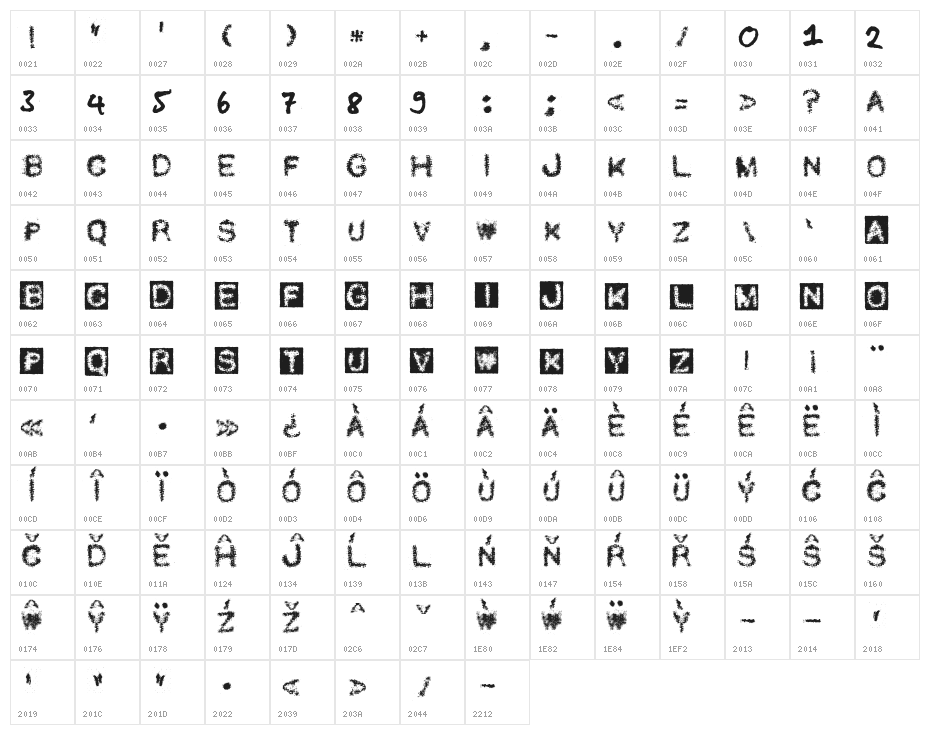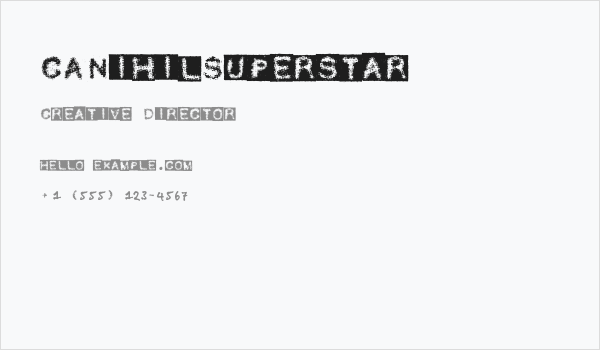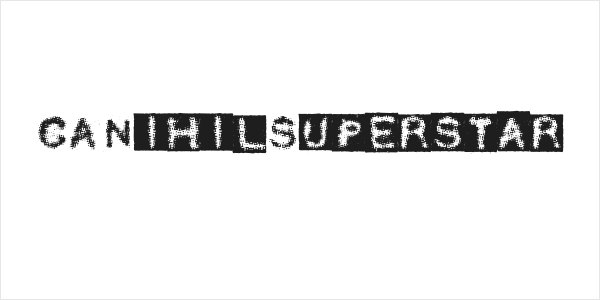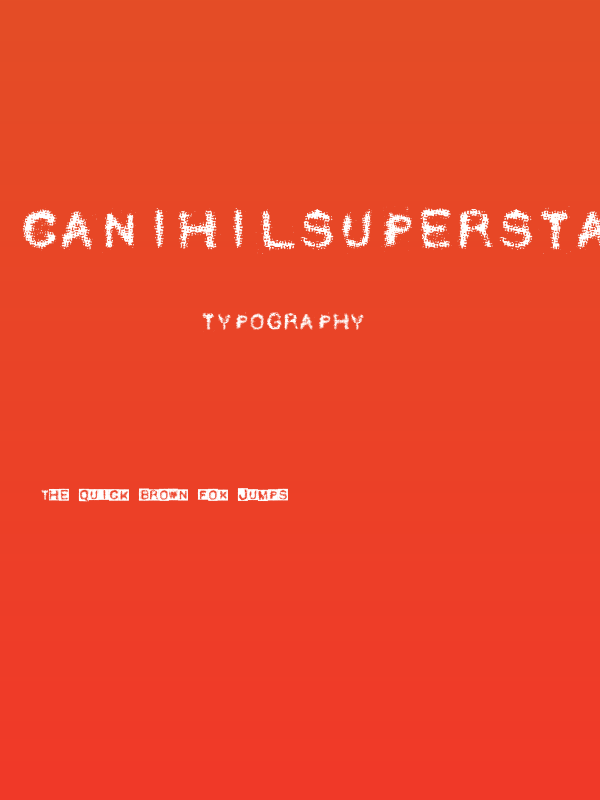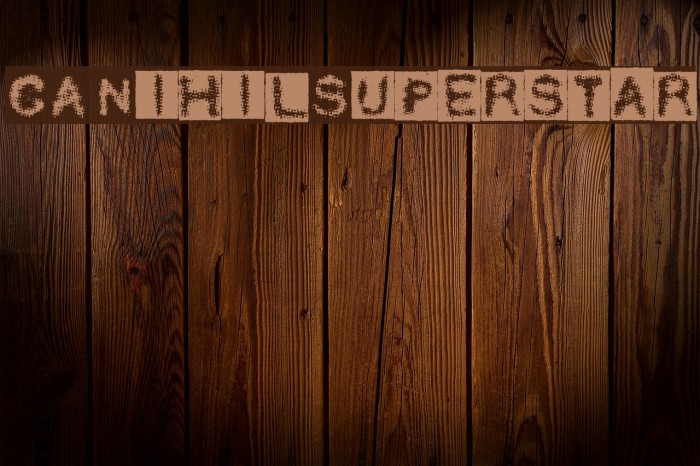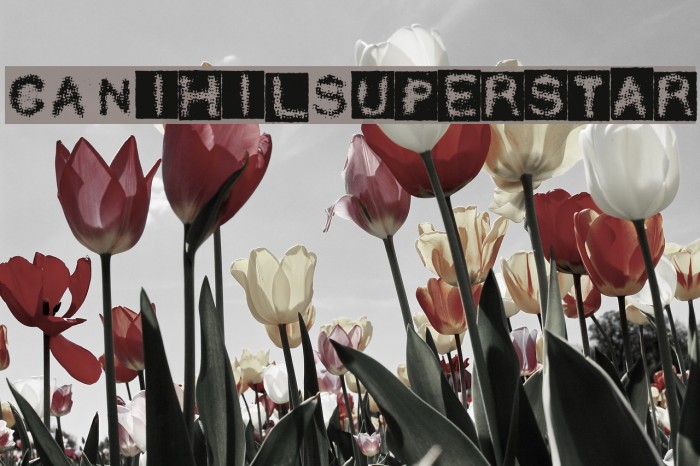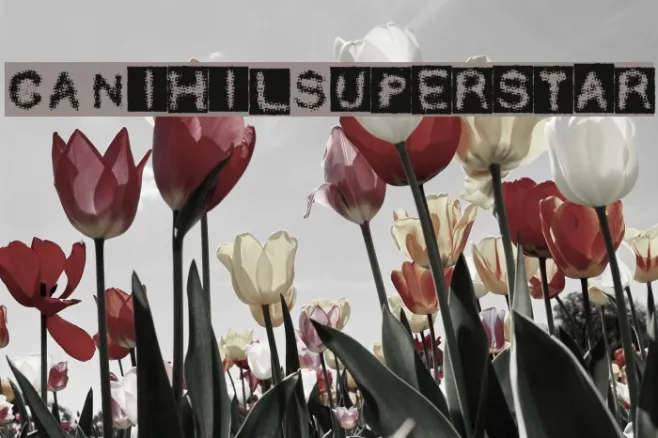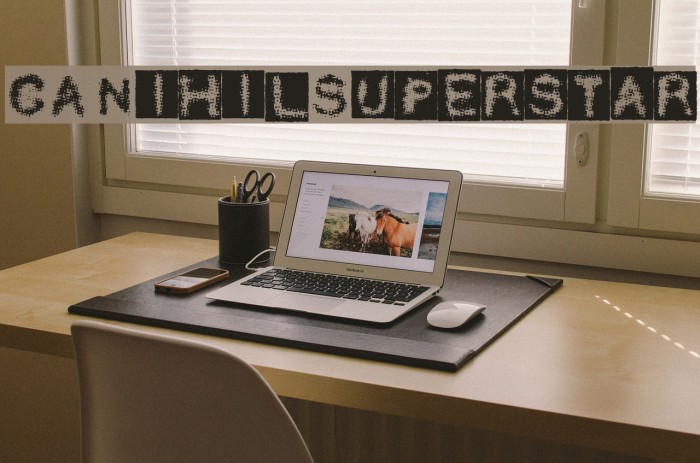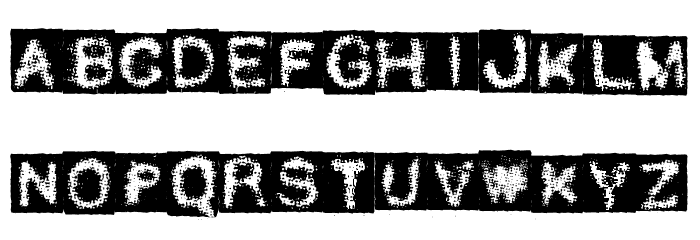
CANihilSuperstar Font
CANihilSuperstar Description
This font features a distressed, grunge style with a textured appearance that gives it a worn, vintage feel. The uppercase letters are bold and prominent, while the lowercase letters maintain a consistent style, adding to the overall rugged aesthetic. Numbers and special characters follow the same design, ensuring uniformity across all glyphs. The font's unique look makes it stand out, with each character appearing as if it has been stamped or printed with a rough texture. This adds a layer of depth and character, making it suitable for projects that require a bold, eye-catching typeface.
| Overall Style | Vintage, Grunge |
| Proposed Projects | Ideal for album covers, posters, branding for edgy or alternative products, and any design needing a bold, vintage touch. |